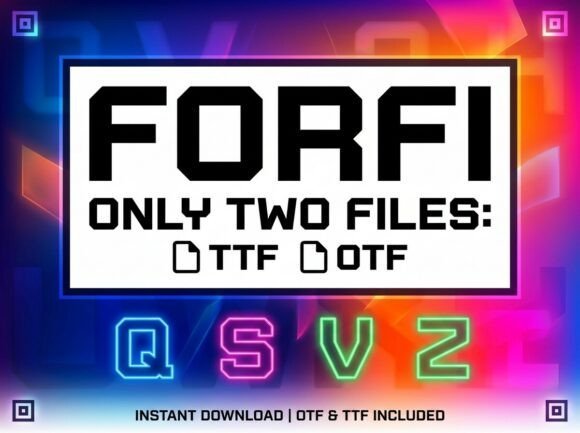
Unleash Your Creative Vision with Forfi Font
You’ve spent hours brainstorming the perfect concept for your next design project, and finally, the moment of truth arrives – it’s time to bring your idea to life. But, as you begin to arrange your elements, something’s missing. That’s where the Forfi Font comes in – a stunning display font designed to elevate your creative projects and make them truly unforgettable.
With its unique blend of artistic elements and strong character, the Forfi Font is the perfect tool for designers who want to break free from the ordinary and create something truly remarkable. This versatile font is ideal for bold headlines, creative branding, and packaging, delivering a high-end, professional aesthetic that’s sure to make your work stand out. Whether you’re a seasoned pro or just starting out, the Forfi Font is an invaluable addition to any designer’s toolkit.
Forfi Font Key Features
- Font Family: Forfi is a sans-serif font family that offers a modern and clean look, making it suitable for various design applications.
- Unique Characteristics: Forfi features a distinctive x-height, making it highly readable, even at smaller font sizes. Its geometric shape also makes it suitable for digital displays.
- Font Weight: Available in multiple weights, including light, regular, bold, and black, allowing designers to choose the perfect weight for their design project.
Forfi Font Review
Overall, I think Forfi Font is a solid choice for designers, especially those looking for a modern and elegant sans-serif font. ✨ Here are some of the things I appreciate about it:
- Legibility: Forfi Font is extremely easy to read, even at smaller font sizes.
- Consistency: The font’s design is consistent throughout, making it great for branding and identity projects.
- Styling options: Forfi Font comes with a range of styles, from light to bold, which gives designers a lot of flexibility.
- Lack of expressiveness: While Forfi Font is great for corporate and professional projects, it may not be the best choice for more creative or expressive projects.
- Not suitable for body text: While it’s great for headings and titles, Forfi Font may not be the best choice for large blocks of body text.
- Not a strong statement font: Forfi Font is a solid, dependable font, but it may not make a strong statement on its own.
Overall, I think Forfi Font is a great choice for designers who need a modern, elegant sans-serif font for their projects. While it has some limitations, it’s a solid addition to any designer’s toolkit.
Forfi Font is ideal for:
- Creating professional-looking logos and titles
- Adding elegance and sophistication to headings and titles
- Designing presentations and documents that require a touch of sophistication
For the best results, use Forfi Font in combination with other elegant and sophisticated fonts. Experiment with different font sizes, colors, and styles to create a unique and professional-looking design.